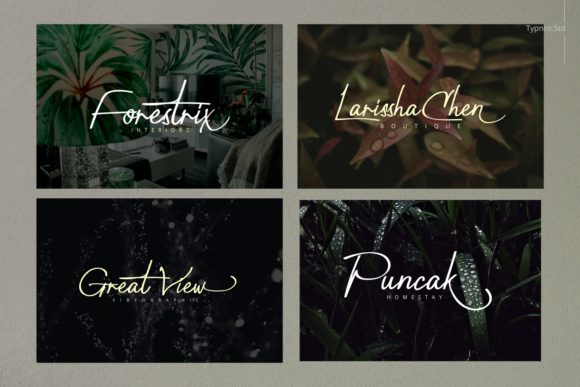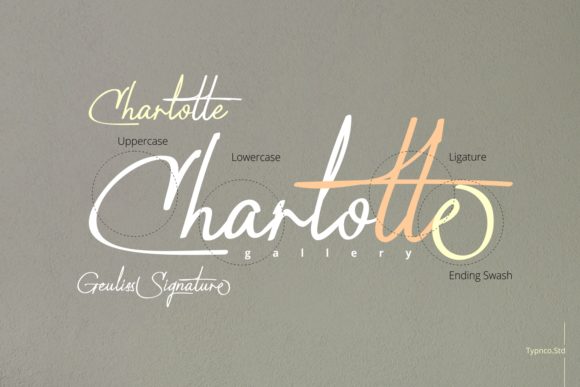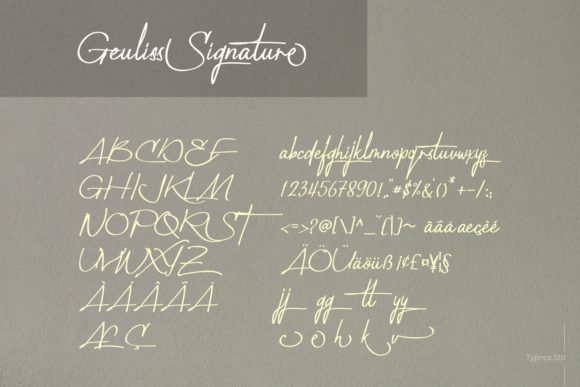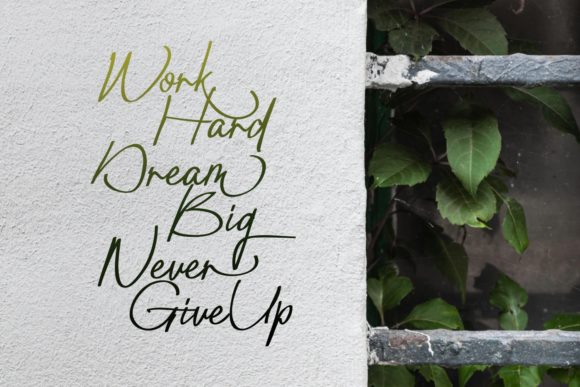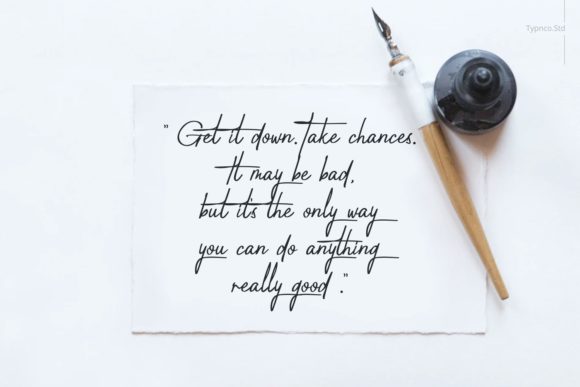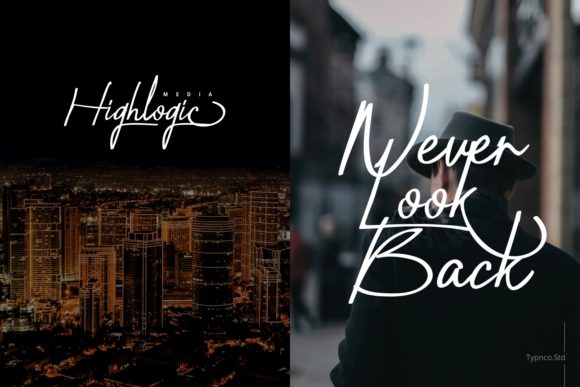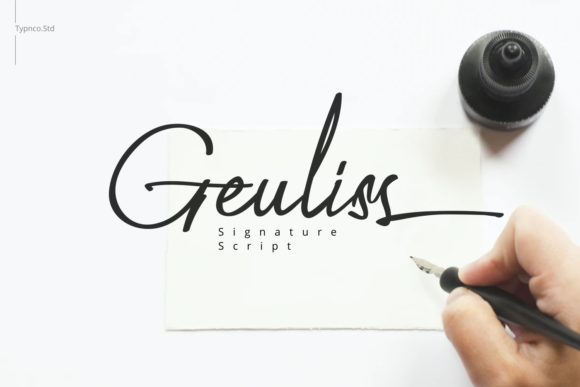
Introducing Geuliss Font: Elevate Your Designs with Elegant Handwriting
Are you looking for a font that adds a touch of sophistication and personality to your designs? Look no further than Geuliss Font, a stylish script font that brings a classy handwriting feel to your projects. With its beautiful, elegant lettering, Geuliss is perfect for designers and crafters seeking to add a personal signature touch to their work.
What Makes Geuliss Font Special?
Geuliss Font is a carefully crafted script font that boasts a unique, handwriting-inspired style. Every single letter has been meticulously designed to ensure that your designs look stunning and refined. The font’s elegant feel makes it suitable for a wide range of applications, from modern and classic designs to signature logos, branding, and more.
Geuliss Font is an incredibly versatile font that can be used in various design projects, including:
- Signature Logos: Add a personal touch to your logo designs with Geuliss Font’s elegant script style.
- Branding: Create a lasting impression with Geuliss Font’s classy handwriting feel, perfect for branding and packaging designs.
- Invitations: Make your invitations stand out with Geuliss Font’s beautiful, sophisticated lettering.
- Blog Headlines: Add a touch of elegance to your blog headlines and make them more engaging.
- Quotes: Use Geuliss Font to create stunning quote designs that inspire and motivate.
- Prints and Scrapbooking: Add a personal touch to your prints and scrapbooking projects with Geuliss Font’s unique handwriting style.
Geuliss Font is PUA (Private Use Area) encoded, which means you can easily access the available glyphs and swashes. This feature allows you to customize your designs and add more personality to your work. With PUA encoding, you can:
- Access a wide range of glyphs and swashes to enhance your designs.
- Easily switch between different letter styles and combinations.
- Create unique and complex designs with minimal effort.
Why Choose Geuliss Font?
Geuliss Font offers a unique combination of elegance, sophistication, and personality, making it an excellent choice for designers and crafters. Here are some reasons why you should consider using Geuliss Font in your next project:
- Unique Handwriting Style: Geuliss Font boasts a distinctive handwriting style that sets it apart from other fonts.
- Elegant and Refined: The font’s elegant feel makes it perfect for designs that require a touch of sophistication.
- Versatile: Geuliss Font can be used in various design projects, from modern and classic designs to signature logos and branding.
- PUA Encoded: The font’s PUA encoding makes it easy to access glyphs and swashes, allowing for greater customization.
Geuliss Font is an exceptional script font that offers a perfect blend of elegance, sophistication, and personality. With its unique handwriting style, PUA encoding, and versatility, Geuliss Font is an excellent choice for designers and crafters seeking to elevate their designs. Whether you’re working on a signature logo, branding project, or scrapbooking design, Geuliss Font is sure to add a touch of class and refinement to your work.